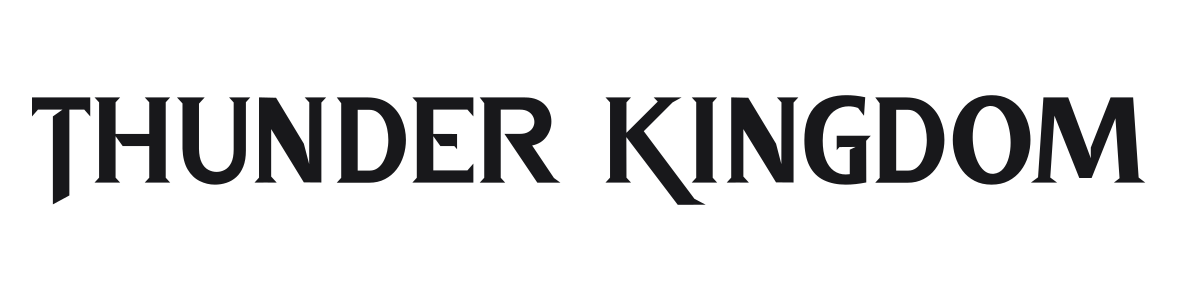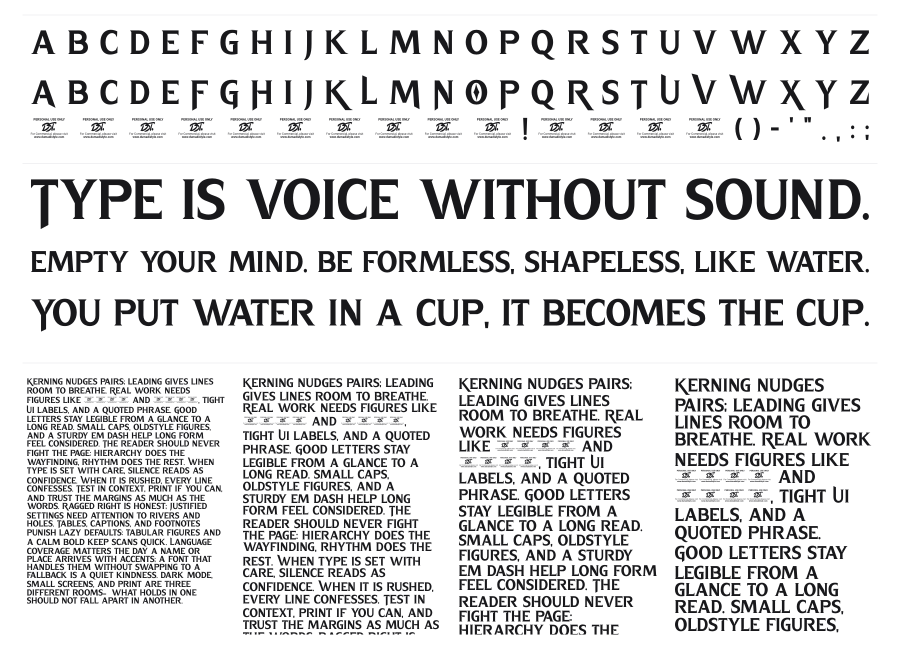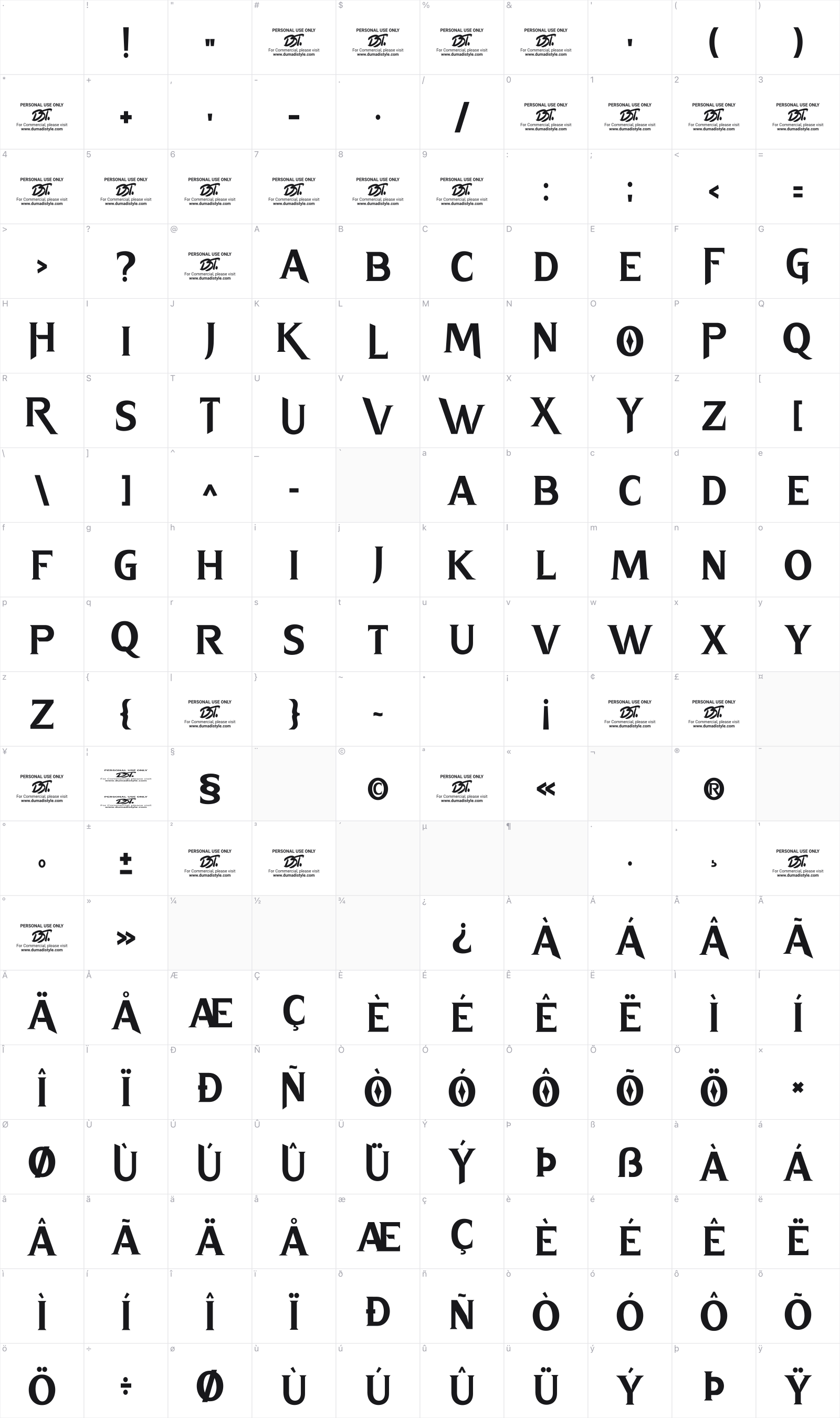
Thunder Kingdom
Thunder Kingdom is a bold display sans with striking wedge-shaped notches cut into letter joints, giving each character a distinctive split that sets it apart from a plain grotesque. The wide, heavy construction reads with real authority at large sizes. It draws on mid-century poster and editorial traditions without feeling like a straight revival.